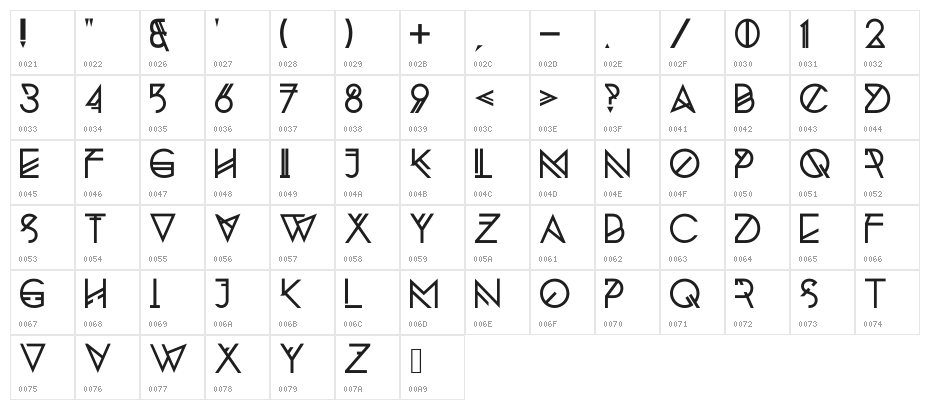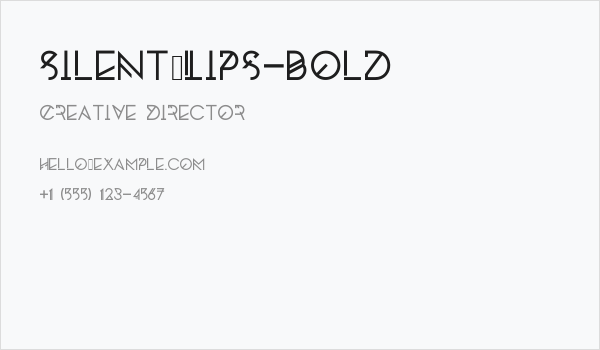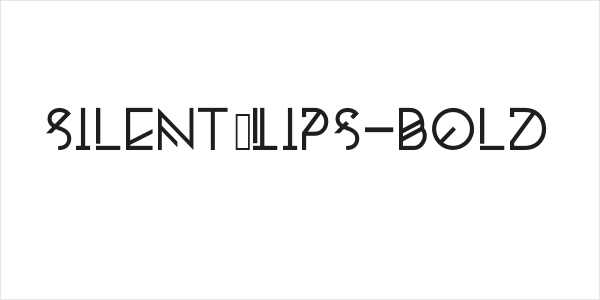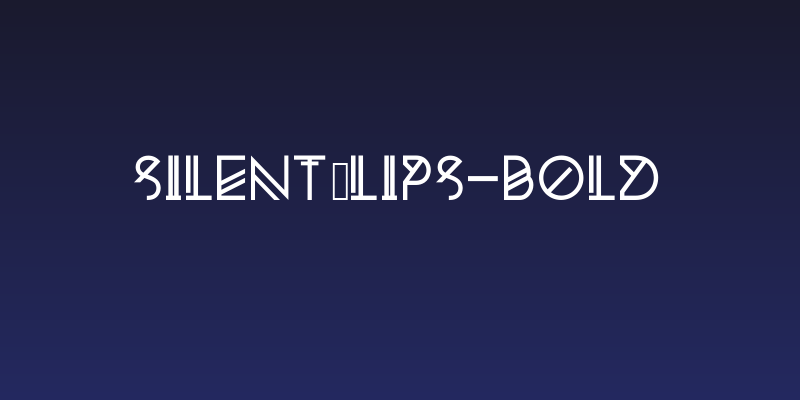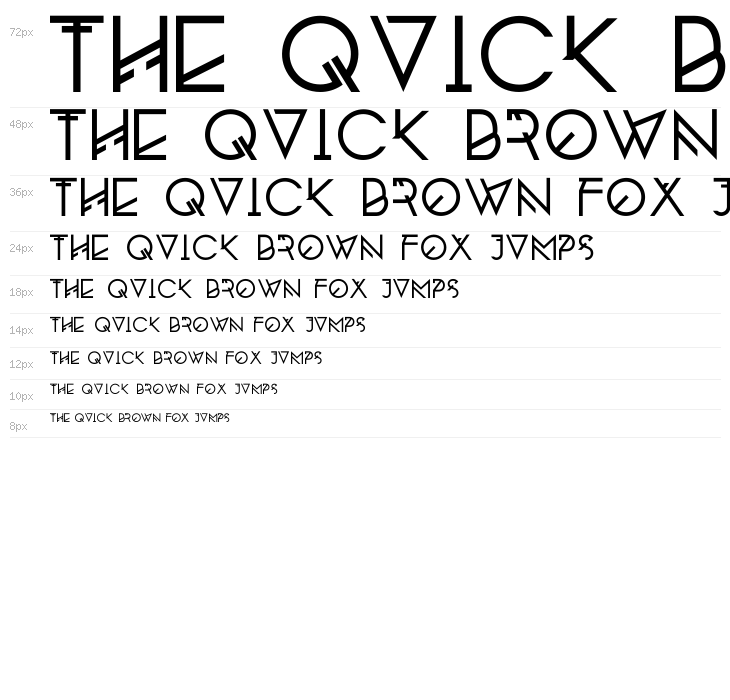
Silent_Lips-Bold Font
Silent_Lips-Bold Description
This font features a bold and geometric design with a futuristic and avant-garde aesthetic. The characters are constructed with sharp angles and clean lines, creating a sense of modernity and innovation. The uppercase and lowercase letters maintain a consistent style, with unique cutouts and strokes that add a distinctive flair. The numerals and special characters follow the same design principles, ensuring a cohesive look across all elements. This font is ideal for projects that require a bold statement and a contemporary feel.
| Proposed Projects | Ideal for branding, posters, album covers, and modern digital interfaces. |